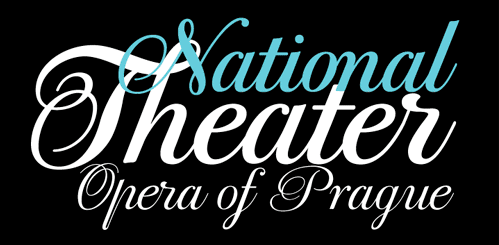
PF Bodoni Script Font Family
• Always intrigued by Bodoni’s original work, I was set out—back in 2000—to examine his work and study Manuale Tipografico, one of the greatest specimen books ever printed. Issued in 1818 at Parma, Italy by Bodoni’s widow, the two-volume work shows an impressive array of 142 roman alphabets and some foreign ones such as Greek and Cyrillic. After a careful examination of all characters, I decided to create a typeface based on the distinct script capitals presented in the book. Matching lowercase italics were later selected and designed to complete the series. Since my intention was not to create simply a digital version of Bodoni’s work, this typeface was designed with connected characters and capitals with extra calligraphic elements.
• The result was released in 2002 and published in our award-winning catalog/book IDEA/Trendsetting Typography vol.1. Later in 2005 we revived a large number of ornaments and borders (credit goes to designer George Lygas).